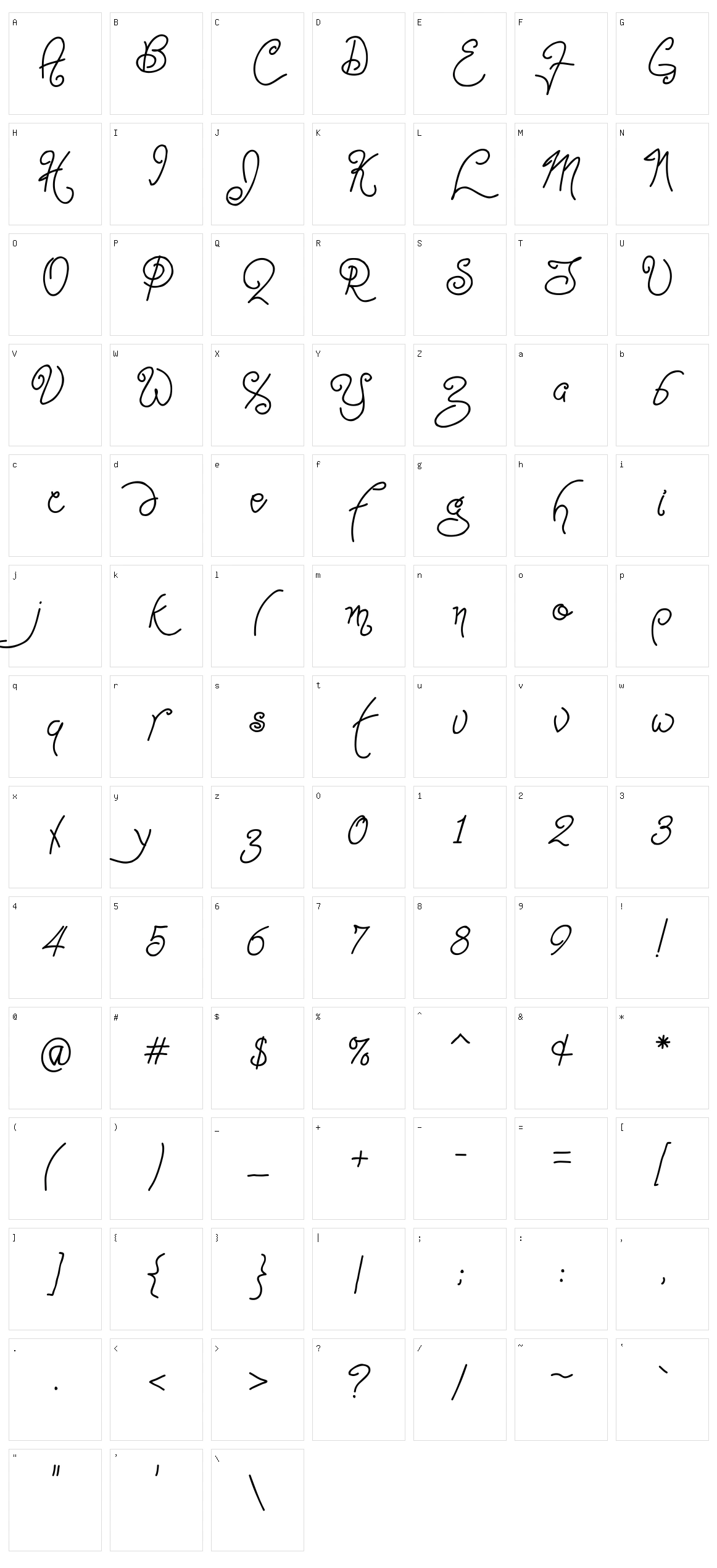
Introducing Point-Dexter (Version 2.0; 04-01-2004), an "HT original" font... After more than a year,... this is the absolutely positively final finished version,... which is meant to replace the TEST/DEMO font that I posted last year at ABF... The font has a fun quirky look,... and I'm calling the style "Scrilligraphy" (it just sounds nice... LOL)... I really like the way that a personal letter looks in this font, sort of an Olde Time Modern curvy curly bendy barely legible look... LOL...
NOTE 2: The font looks super printed at 16 points and up.